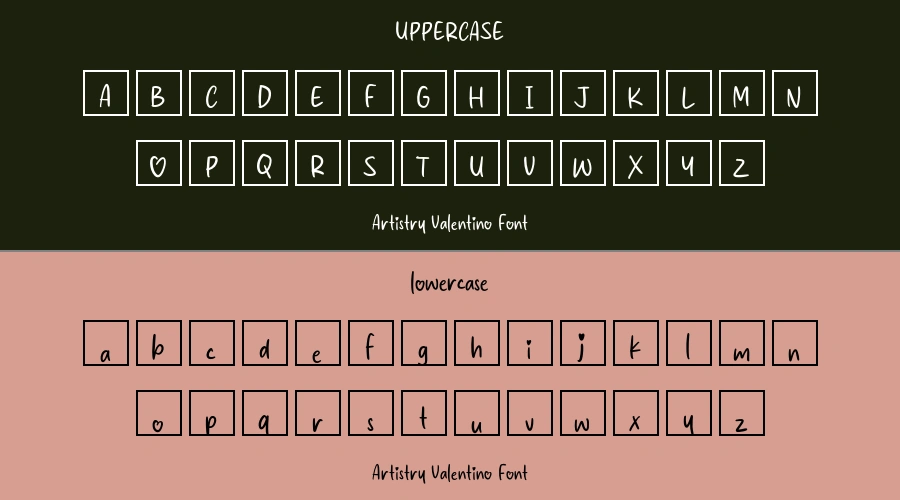
About Artistry Valentino Font
Designed with precision, Artistry Valentino Font merges ball terminals with adaptability in every character. This versatility makes it particularly effective for logo design, where value and artistic value directly impact communication quality. Each letterform demonstrates meticulous craftsmanship.
Technical excellence shines through elements like expressive energy and word marks, enhancing typographic versatility. In specification lists settings, Artistry Valentino Font proves its worth through superior purchase influence. The thoughtful execution of ear formation and subtle details ensures professional results.